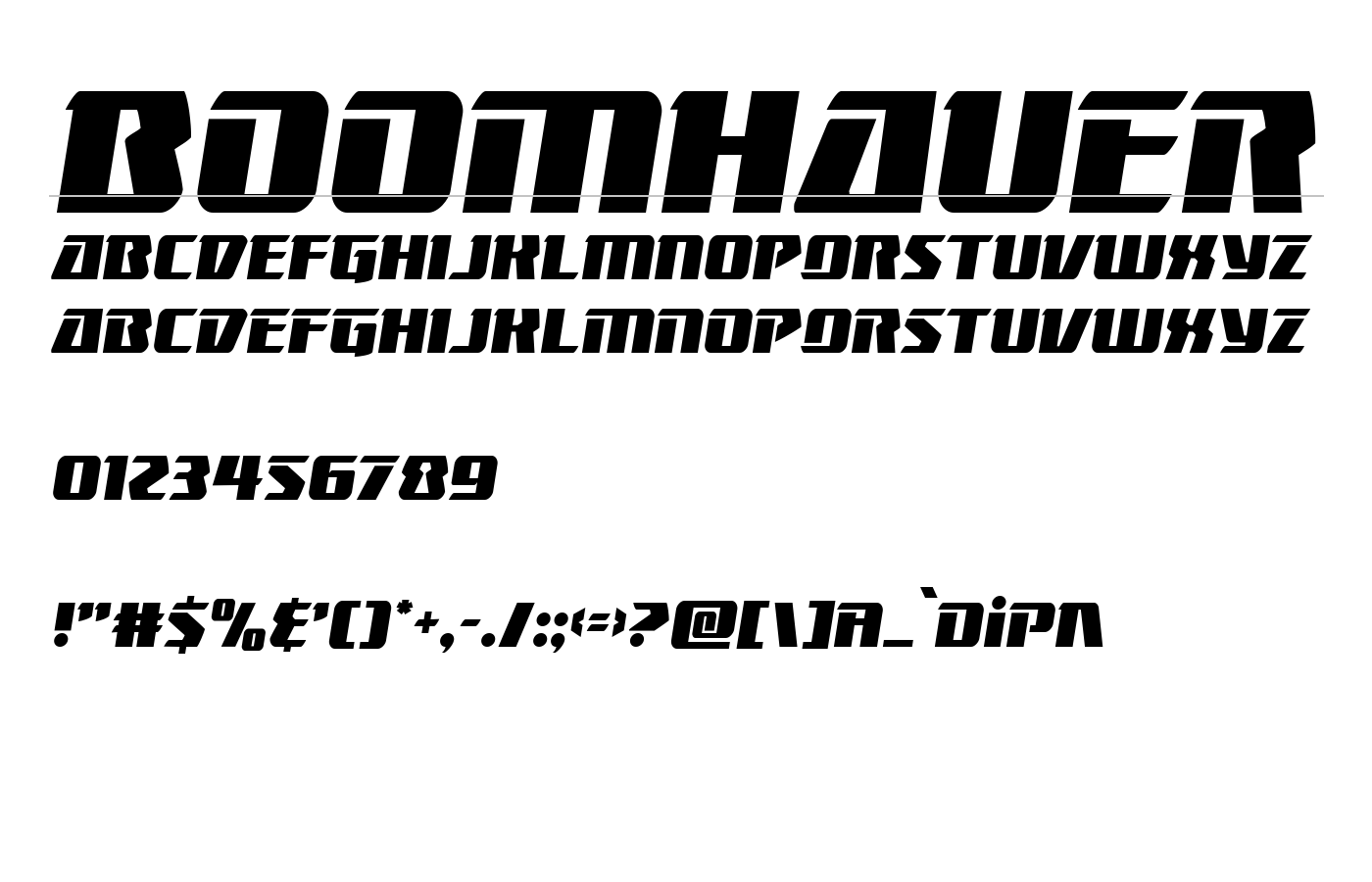
Boomhauer is a bold, condensed sans serif font with a strong, futuristic personality. Its sharp, angled strokes and compact letterforms give it a dynamic, high-energy feel, making it ideal for impactful headlines, logos, and branding that needs a modern, tech-savvy edge. This font works best in display settings where its unique, geometric style can command attention and convey confidence.
Boomhauer Font
About Boomhauer Font